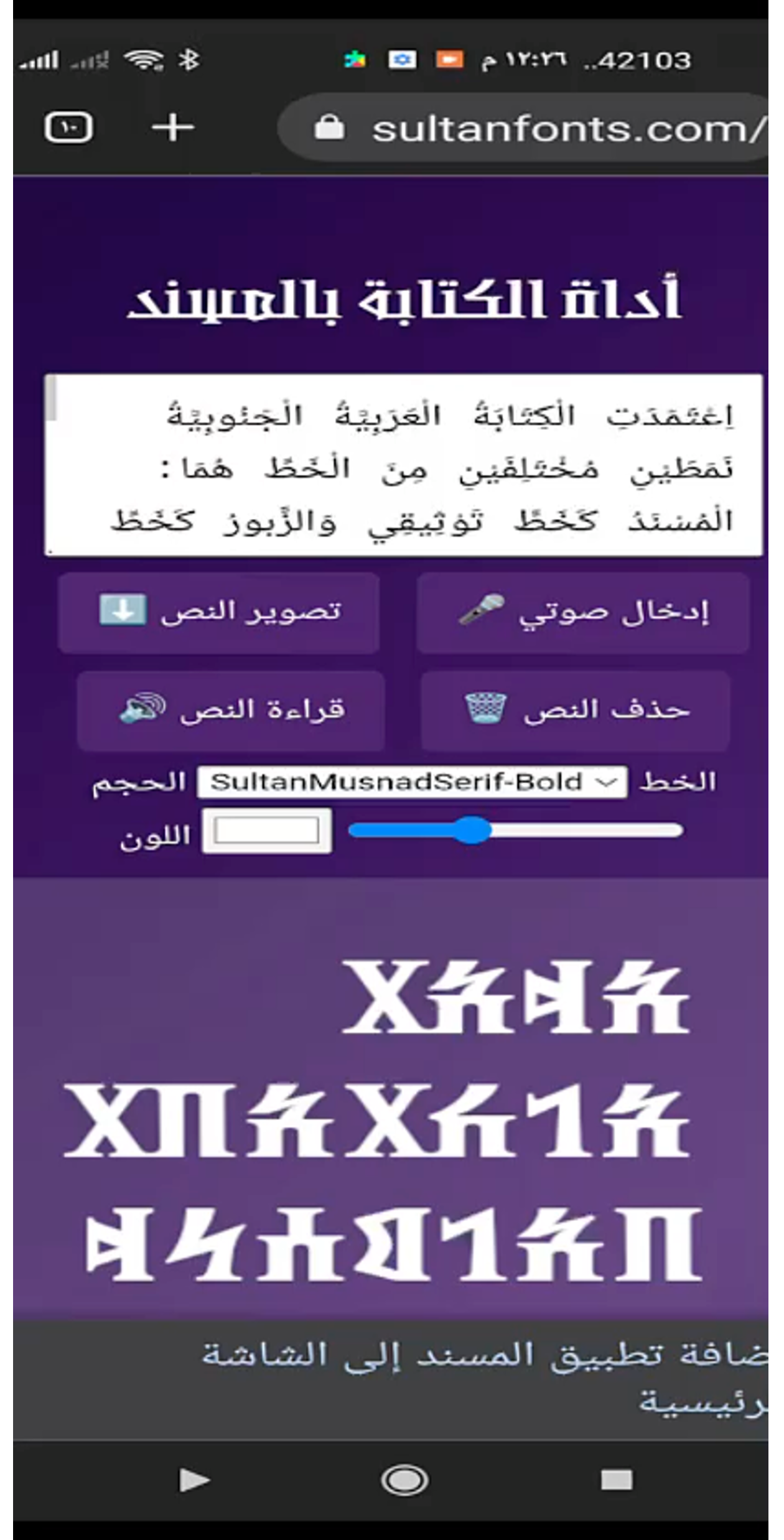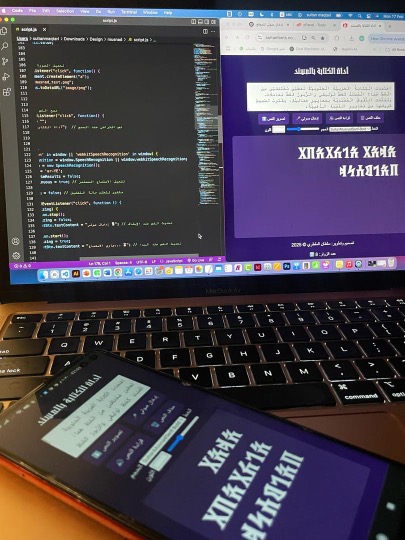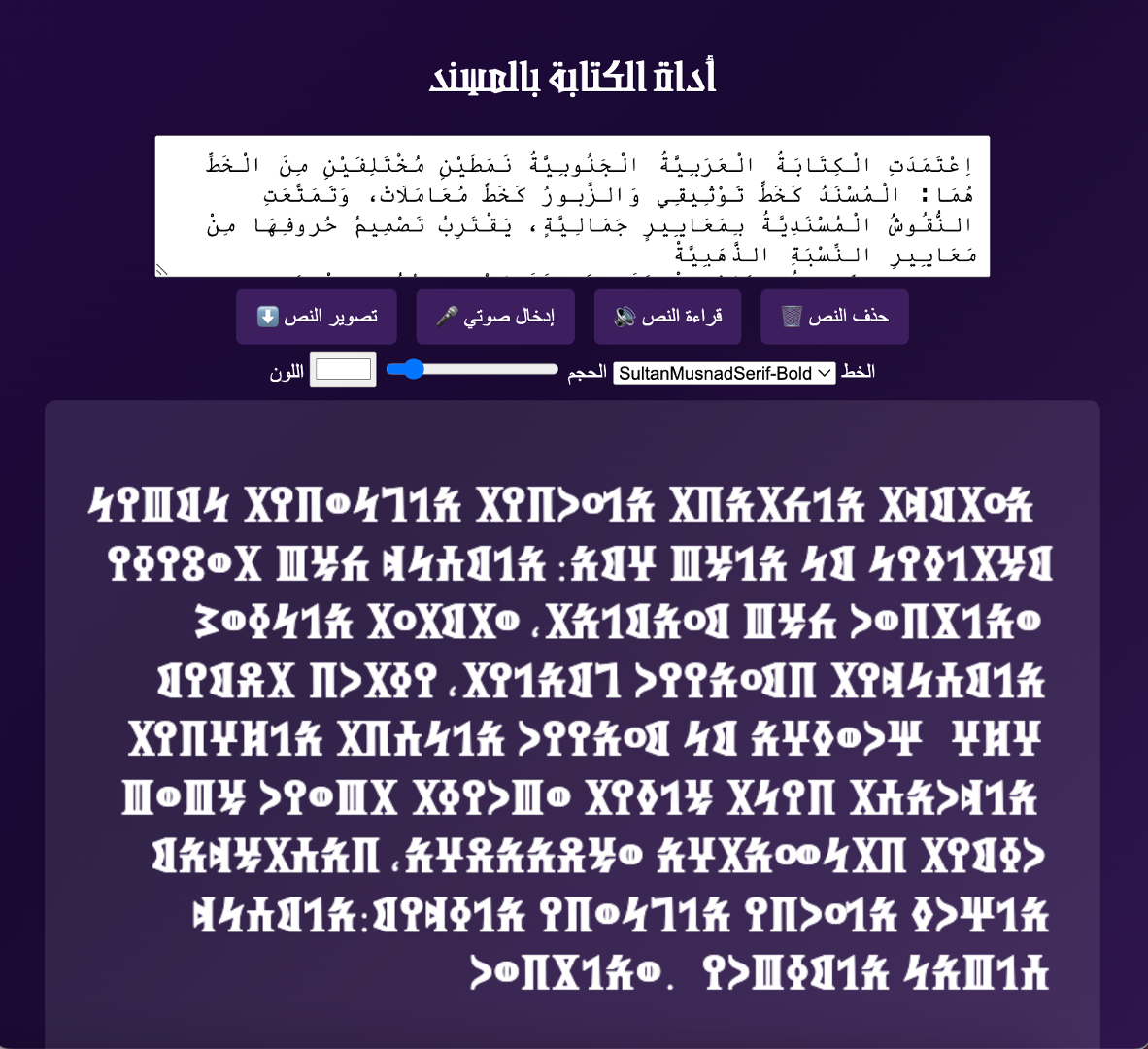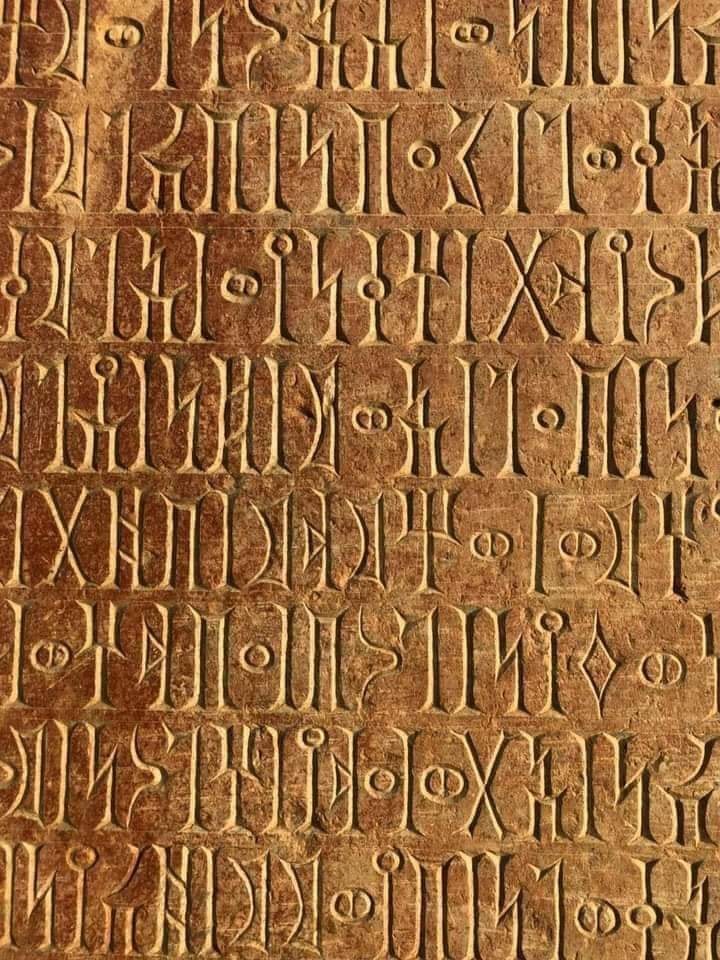
In a historic step that embodies the balance between heritage preservation and openness to the digital era, the Yemeni researcher Sultan Maqtari unveiled an advanced interactive tool for writing the Musnad script. The launch took place during an academic symposium held at the University of Aden on February 19, 2025, to mark the National Day of the Musnad Script.
The symposium brought together a distinguished group of professors, researchers, and heritage enthusiasts. A series of scholarly papers highlighted the importance of the Musnad script and its pivotal role in the history of the Arabian Peninsula. The announcement of the new interactive tool marks a major turning point in efforts to safeguard Arab heritage, providing a bridge between past and present and enabling researchers and designers to work with the script through advanced digital means.
The Musnad script is one of the oldest writing systems in the Arabian Peninsula, used from the first millennium BCE to record the Sabaean, Minean, Qatabanian, and Hadramautic languages. Despite its profound historical and cultural significance, the script faded over the centuries as its usage declined.
Since 2005, Sultan Maqtari has pioneered the digitization of heritage scripts. This effort culminated in the script's inclusion in the international Unicode Standard in 2007 (ensuring its global digital recognition and compatibility), the release of a digital keyboard in 2018, and now the launch of the advanced interactive tool introduced to the world today.
Sultan Maqtari’s interactive tool is distinguished by innovative technical features that make it a model for blending authenticity with modernity:
The tool’s significance transcends technical innovation; it links past and present, giving the Musnad script new life in the digital world. Researchers can now study ancient inscriptions with ease, while designers and artists gain a fresh visual medium for creative work. The tool also strengthens the global visibility of Yemeni heritage at a time when safeguarding cultural identity against globalization is more urgent than ever.
Sultan Maqtari’s Musnad digitization tool proves to be more than just an advanced technological feat; it is a conceptual vision that redefines the relationship between heritage and modernity. It lays the foundations for a digital future that respects the past while exploring new frontiers in digital writing and art, ensuring that the Musnad script remains a testament to the enduring Arab spirit in today’s technological landscape.
This work has moved beyond theory to become a practical reality available to all. We invite researchers, designers, and heritage enthusiasts to experience the interactive tool directly and engage in this pioneering digital project.
في خطوة تاريخية تجسد التوازن بين صون التراث والانفتاح على العصر الرقمي، كشف الباحث اليمني سلطان المقطري النقاب عن أداة تفاعلية متقدمة للكتابة بخط المسند. وقد تم إطلاق الأداة خلال ندوة علمية عُقدت في جامعة عدن بتاريخ 19 فبراير 2025، وذلك احتفالاً باليوم الوطني لخط المسند.
جمعت الندوة نخبة متميزة من الأساتذة والباحثين والمهتمين بالتراث، حيث أُلقيت مجموعة من الأوراق العلمية التي سلطت الضوء على أهمية خط المسند ودوره المحوري في تاريخ شبه الجزيرة العربية. ويُعد الإعلان عن الأداة التفاعلية الجديدة نقطة تحول كبرى في جهود صون التراث العربي، حيث توفر جسراً بين الماضي والحاضر، وتُمكن الباحثين والمصممين من التعامل مع الخط عبر وسائل رقمية متطورة.
يُعد خط المسند من أقدم أنظمة الكتابة في شبه الجزيرة العربية، وقد استُخدم منذ الألفية الأولى قبل الميلاد لتدوين اللغات السبئية والمَعينية والقتبانية والحضرمية. وعلى الرغم من أهميته التاريخية والثقافية العميقة، فقد تضاءل استخدامه عبر القرون.
ومنذ عام 2005، يقود سلطان المقطري جهوداً رائدة في رقمنة الخطوط التراثية، تكللت بإدراج خط المسند في معيار يونيكود (Unicode) الدولي عام 2007 (مما ضمن اعترافه وتوافقه الرقمي العالمي)، وإصدار لوحة مفاتيح رقمية عام 2018، وصولاً إلى إطلاق الأداة التفاعلية المتقدمة التي قُدمت للعالم اليوم.
تتميز أداة المقطري التفاعلية بميزات تقنية مبتكرة تجعلها نموذجاً للمزج بين الأصالة والمعاصرة:
تتجاوز أهمية الأداة مجرد الابتكار التقني؛ إنها تربط الماضي بالحاضر، وتمنح خط المسند حياة جديدة في العالم الرقمي. يمكن للباحثين الآن دراسة النقوش القديمة بيسر، ويكتسب المصممون والفنانون وسيطاً بصرياً جديداً لأعمالهم الإبداعية. كما تعزز الأداة الرؤية العالمية للتراث اليمني في وقت أصبح فيه صون الهوية الثقافية ضد تيارات العولمة أكثر إلحاحاً من أي وقت مضى.
تؤكد أداة المسند الرقمية لسلطان المقطري أنها أكثر من مجرد إنجاز تقني متقدم؛ إنها رؤية مفاهيمية تعيد تعريف علاقة التراث بالحداثة. هي تضع الأسس لمستقبل رقمي يحترم الماضي ويستكشف آفاقاً جديدة في الكتابة الرقمية والفن، لضمان بقاء خط المسند شاهدًا على الروح العربية الأصيلة في المشهد التكنولوجي المعاصر.
لقد تجاوز هذا العمل حدود النظرية ليصبح واقعاً متاحاً للجميع. ندعو الباحثين والمصممين والمهتمين بالتراث إلى تجربة الأداة التفاعلية بشكل مباشر، والانخراط في هذا المشروع الرقمي الرائد.